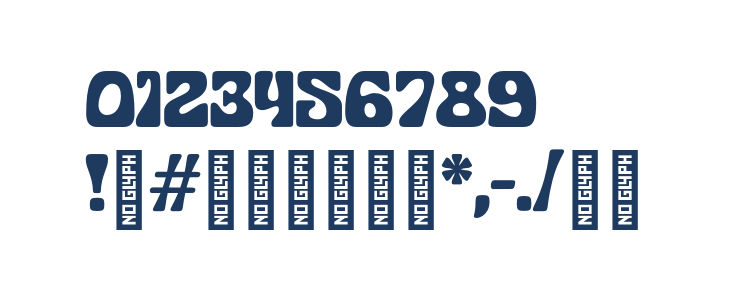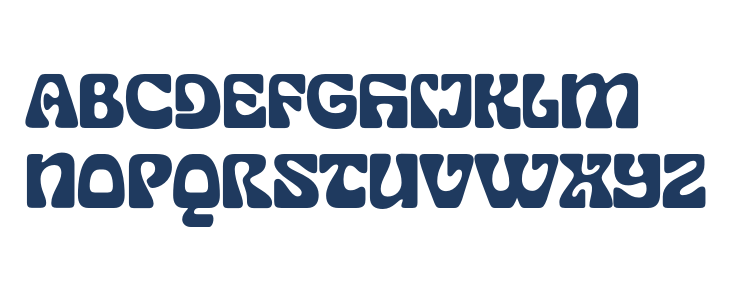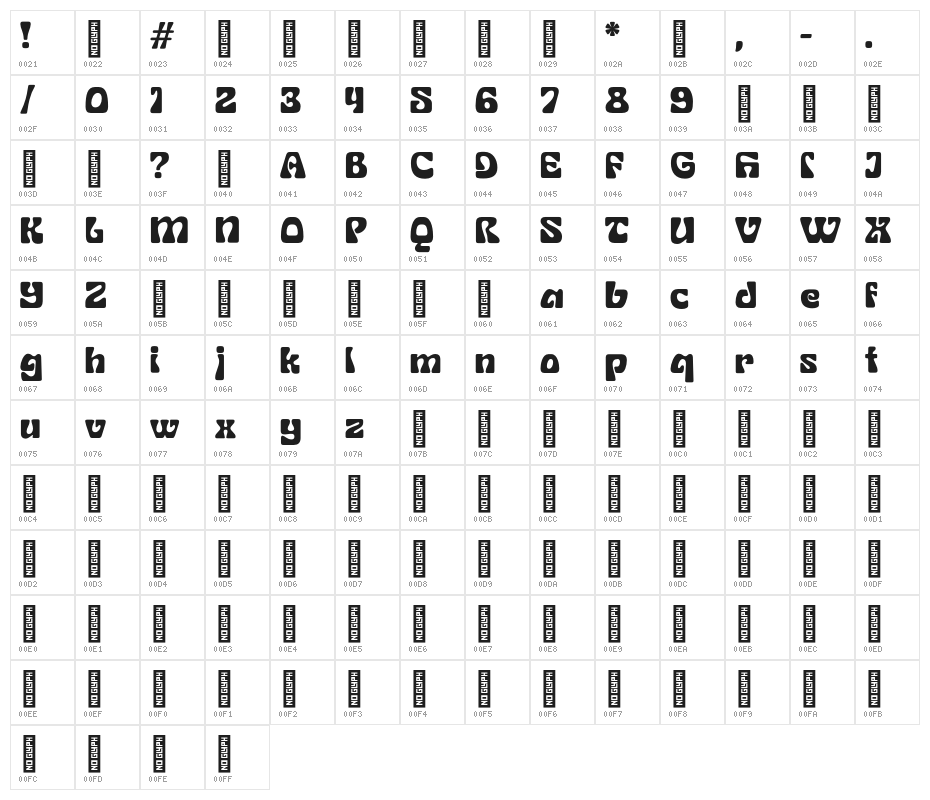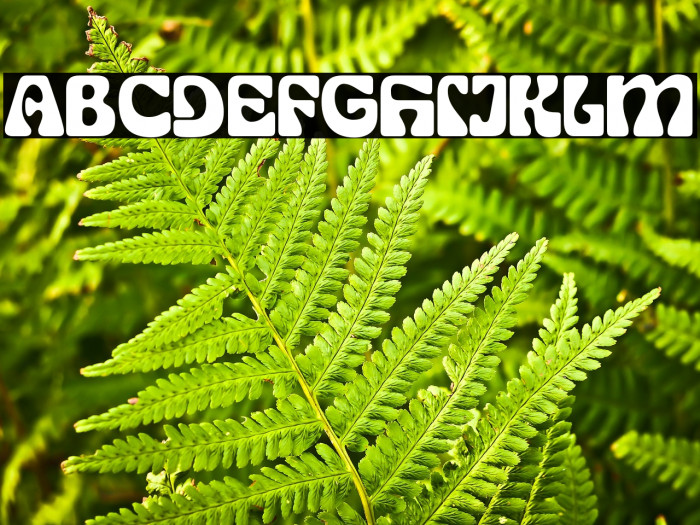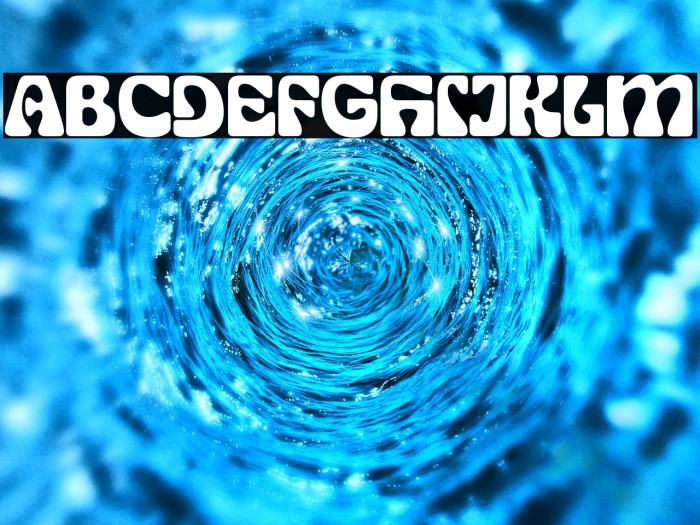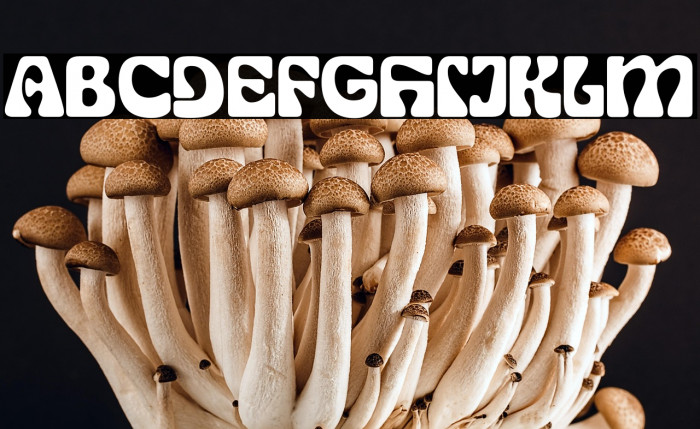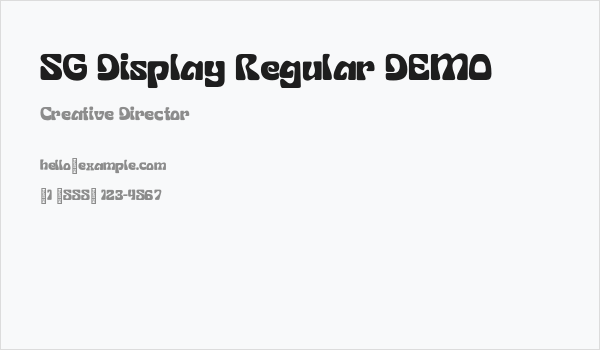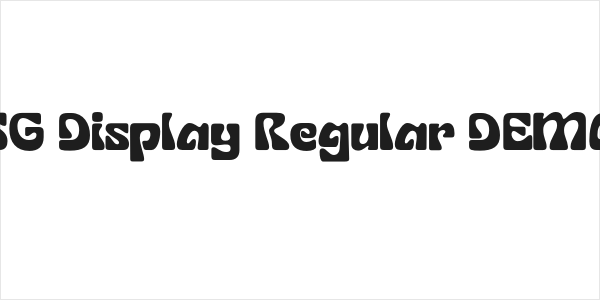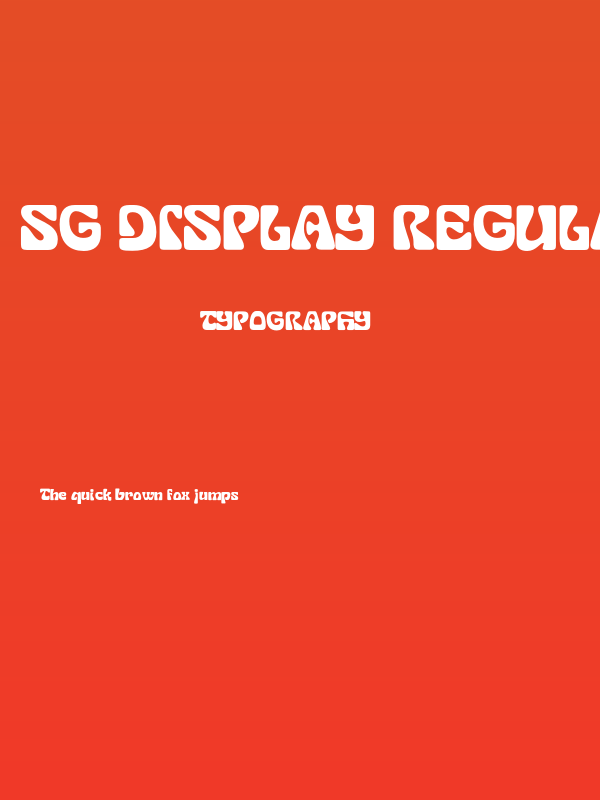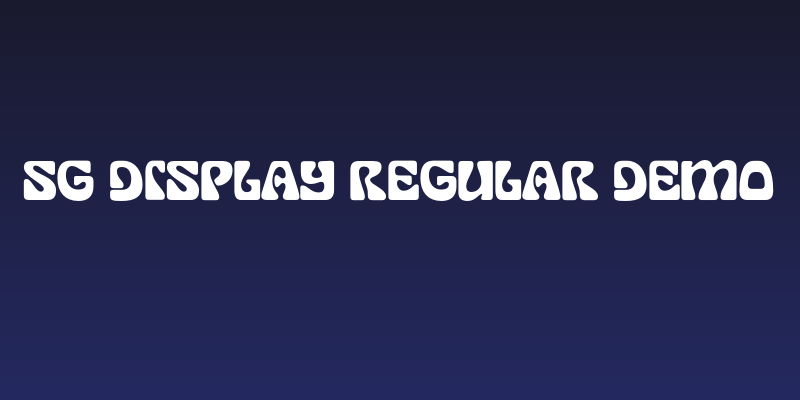
SG Display Regular DEMO Font
SG Display Regular DEMO Description
A bold, rounded display typeface with thick, blocky letterforms and playful, geometric cutouts, creating a unique and eye-catching appearance. The characters have consistent stroke weight and a soft, retro-futuristic vibe.
| Overall Style | Decorative, Retro, Playful |
| Proposed Projects | Posters, branding, album covers, event flyers, packaging, headlines. |